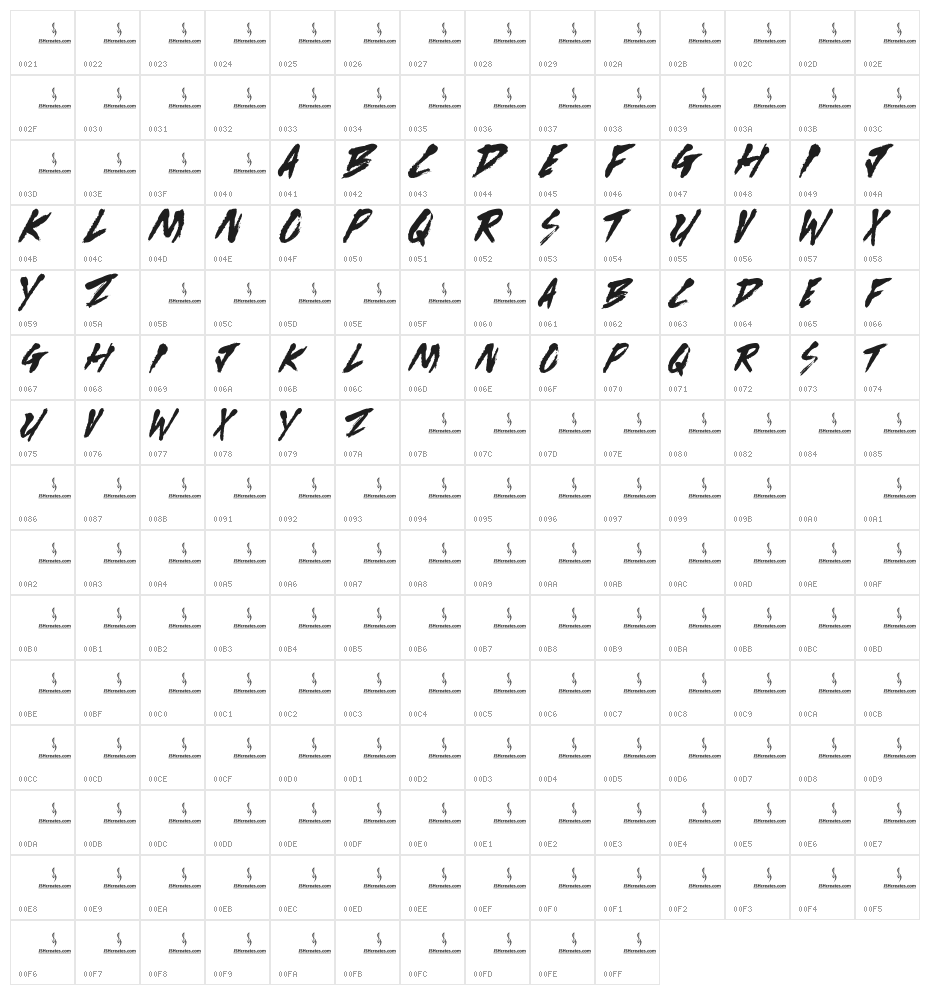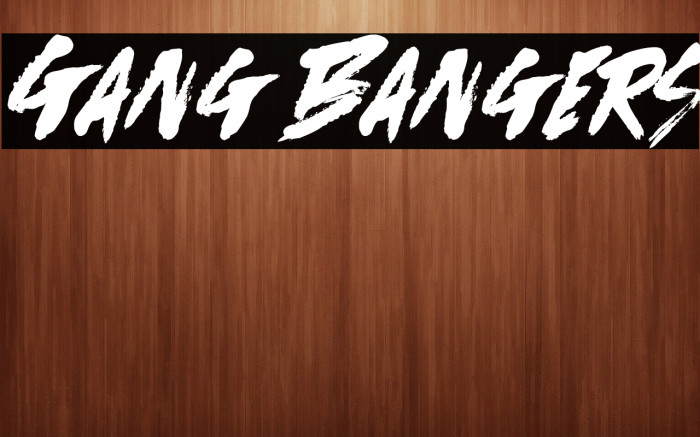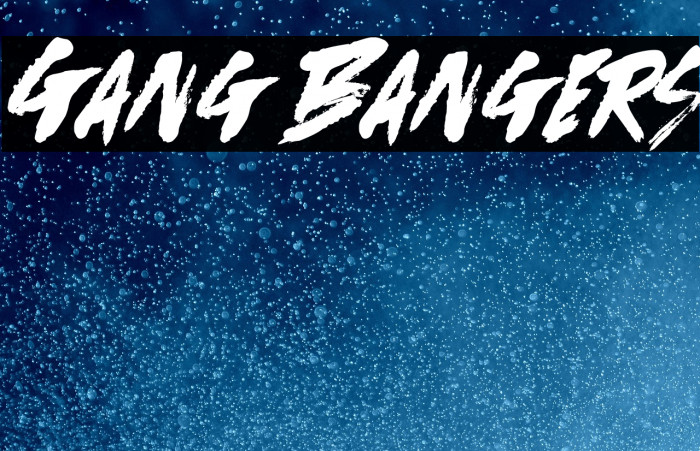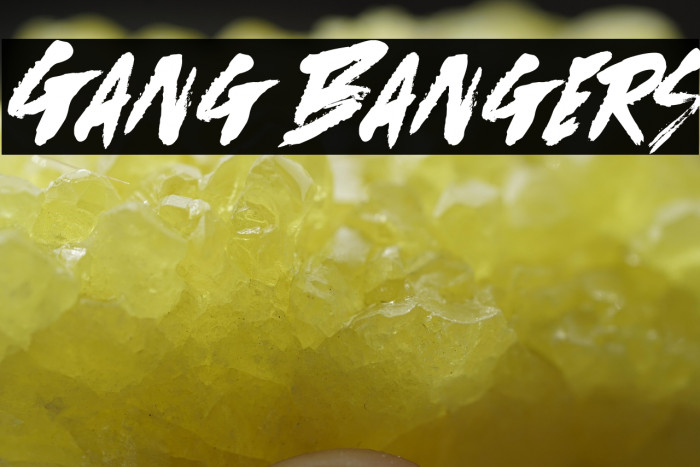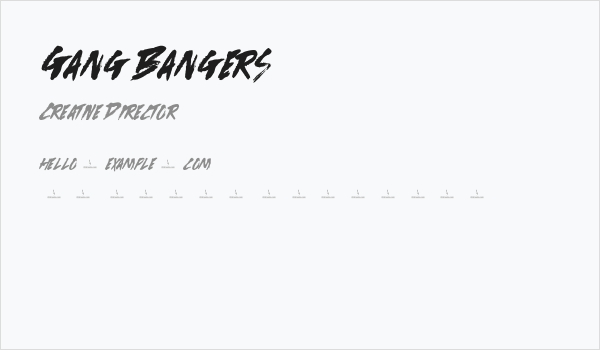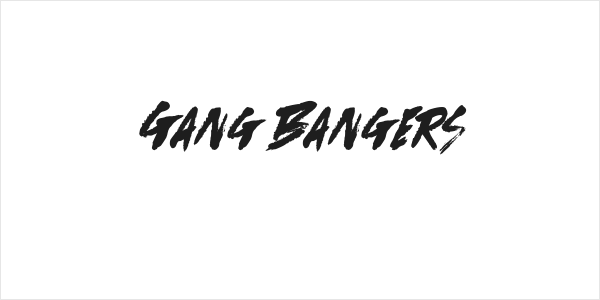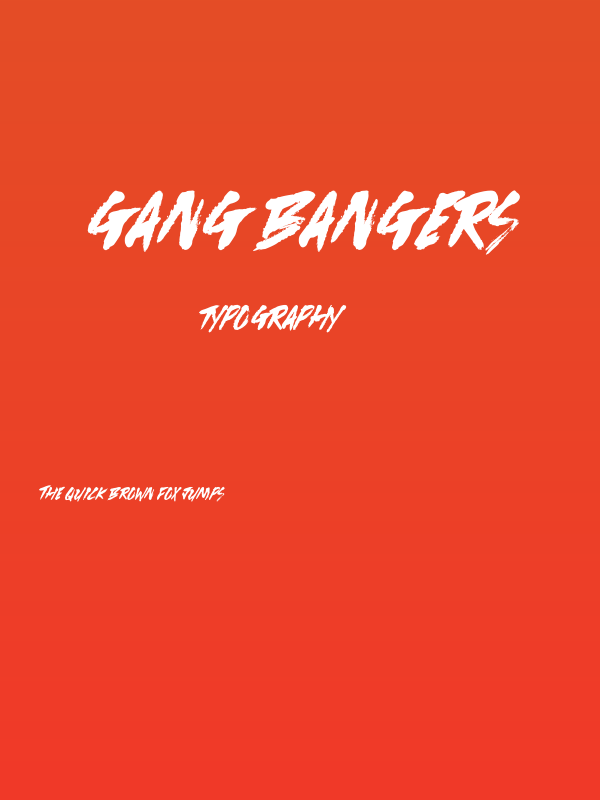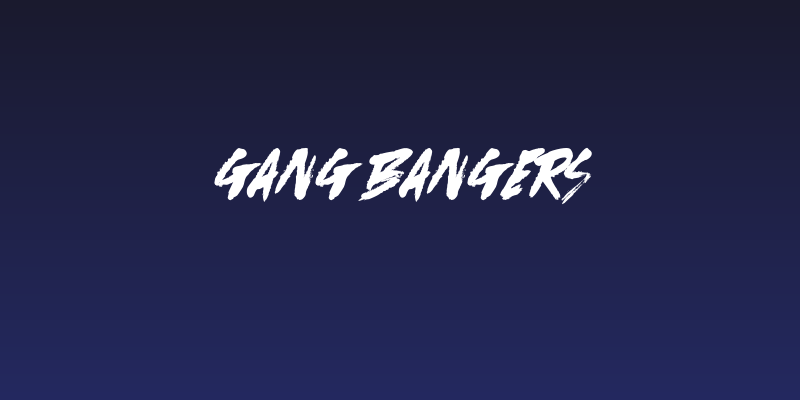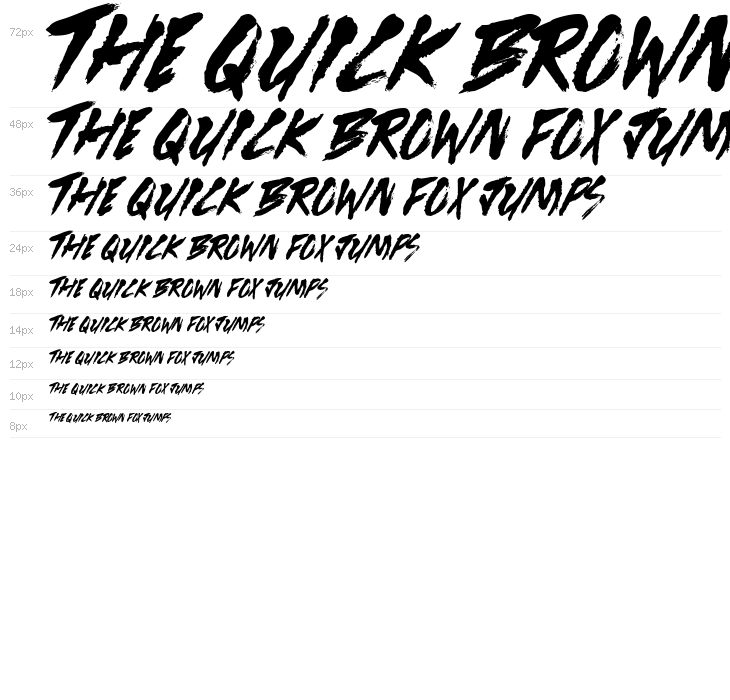
Gang Bangers Font
Gang Bangers Description
This font exudes a bold, rebellious energy with its brush-like strokes and dynamic, angular forms. Each character appears as if it were painted with a thick brush, creating a sense of movement and intensity. The uppercase letters are particularly striking, with sharp edges and varying stroke widths that add to the font's aggressive and edgy aesthetic. The lowercase letters maintain this energy, offering a cohesive look throughout. The overall style is reminiscent of street art or graffiti, making it ideal for projects that require a strong, impactful visual statement.
Overall StyleModern, Urban
Proposed ProjectsPerfect for streetwear branding, music album covers, event posters, and any project needing a bold, urban aesthetic.